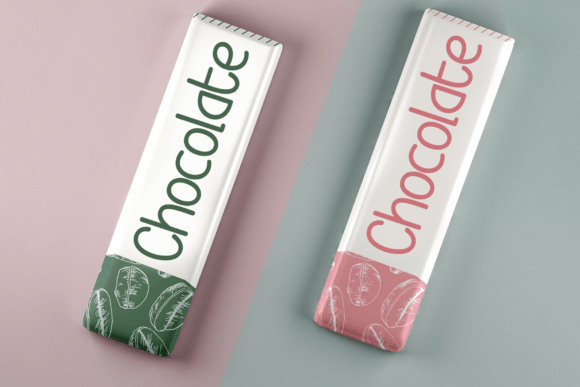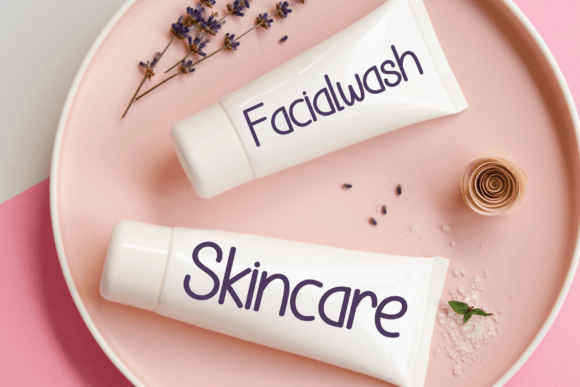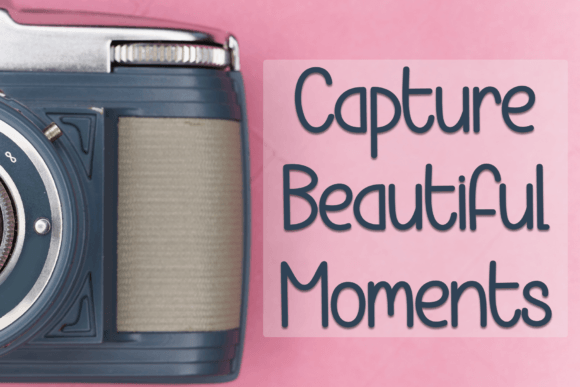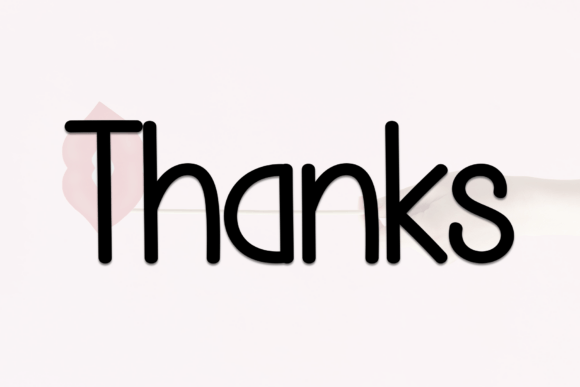
Introducing Handmade Valentine Font: The Perfect Blend of Elegance and Casual Charm
Are you on the hunt for a font that exudes a sense of luxury and elegance, yet still maintains a casual and sporty vibe? Look no further than the Handmade Valentine Font. This beautiful, handwritten font is designed to resemble text drawn with a marker, giving it a unique and personalized feel that’s perfect for a wide range of design applications.
What Makes Handmade Valentine Font So Special?
Handmade Valentine Font is a one-of-a-kind typeface that boasts a relaxed, sporty feel that’s ideal for designers and crafters looking to add a touch of sophistication to their work. With its marker-like strokes and fluid letterforms, this font is sure to elevate your designs and make them stand out from the crowd.
Whether you’re working on a branding project, designing wedding supplies, or creating greeting cards, Handmade Valentine Font is the perfect choice. Its versatility and charm make it an excellent addition to any designer’s toolkit.
So, what can you use Handmade Valentine Font for? The possibilities are endless! Here are just a few ideas to get you started:
- Branding: Use Handmade Valentine Font to create a unique and memorable logo that reflects your brand’s personality and style.
- Wedding Supplies: Add a touch of elegance and whimsy to your wedding designs, including invitations, programs, and decorations.
- Greeting Cards: Create beautiful, one-of-a-kind greeting cards for special occasions like Valentine’s Day, birthdays, and holidays.
- Fashion: Use Handmade Valentine Font to create stunning lookbooks, fashion magazines, and marketing materials that showcase your brand’s style and sophistication.
- Marketing Promotions: Add a personal touch to your marketing materials, including brochures, flyers, and social media graphics.
Why Choose Handmade Valentine Font?
With so many fonts to choose from, why should you choose Handmade Valentine Font? Here are just a few reasons why this font stands out:
- Unique and Handwritten: Handmade Valentine Font is a truly unique and handwritten font that will add a personal touch to your designs.
- Relaxed and Sporty: This font boasts a relaxed, sporty feel that’s perfect for designers who want to create a sense of elegance and sophistication without being too formal.
- Versatile: Handmade Valentine Font can be used for a wide range of design applications, from branding and marketing to wedding supplies and greeting cards.
- Elegant and Casual: This font is the perfect blend of elegance and casual charm, making it ideal for designers who want to create designs that are both sophisticated and approachable.
Tips for Using Handmade Valentine Font
Here are a few tips for getting the most out of Handmade Valentine Font:
- Pair it with Other Fonts: Experiment with pairing Handmade Valentine Font with other fonts to create a unique and visually appealing design.
- Use it for Headlines and Titles: Handmade Valentine Font is perfect for headlines and titles, where its marker-like strokes and fluid letterforms can really shine.
- Add Some Color: Don’t be afraid to add some color to your design to really make Handmade Valentine Font pop.
In conclusion, Handmade Valentine Font is a beautiful, handwritten font that’s perfect for designers and crafters looking to add a touch of elegance and sophistication to their work. With its relaxed, sporty feel and versatile design, this font is sure to become a staple in your design toolkit.